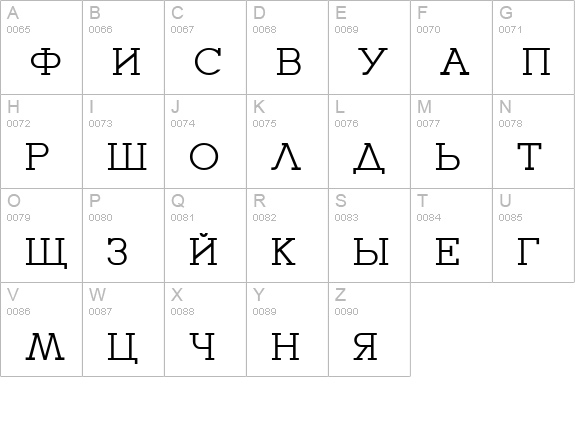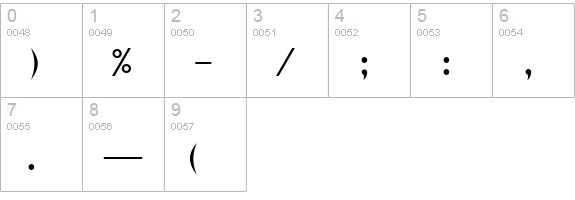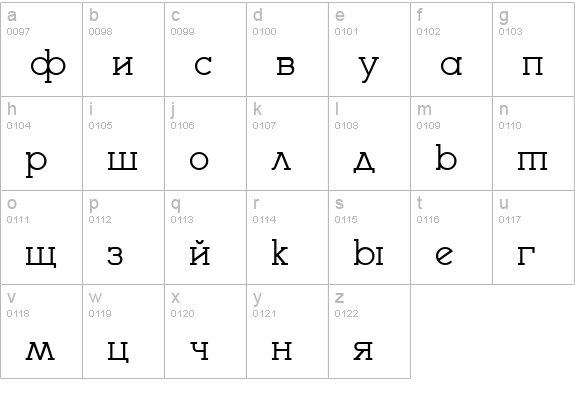
Stargorod Font Details
Introducing Stargorod font, a breathtaking typeface that will transport your designs to a whole new dimension. With its enchanting curves and intricate details, Stargorod captures the essence of elegance and sophistication. This font exudes a timeless beauty that is sure to captivate any viewer. Stargorod is not just an ordinary font; it is a masterpiece crafted with meticulous attention to detail. Every stroke and curve has been carefully designed to create a harmonious balance that is both visually appealing and easy to read. Whether you are creating a logo, designing a website, or crafting a poster, Stargorod will elevate your project to new heights of professionalism. One of the most remarkable aspects of Stargorod font is that it is available for free. Yes, you read that right! This stunning font can be yours without spending a single penny. Simply head over to FontsMarket.com and download Stargorod to unlock a world of possibilities. Whether you are a professional designer or a hobbyist, this font is a must-have in your toolkit. With its versatility, Stargorod can be used in a wide range of design projects. Its timeless elegance makes it perfect for wedding invitations, fashion magazines, luxury branding, and much more. The possibilities are endless, and with Stargorod, your creativity knows no bounds. So why wait? Experience the magic of Stargorod font today. Download it for free at FontsMarket.com and let your designs shine with its enchanting beauty. Elevate your work to a whole new level and leave a lasting impression on your audience. Stargorod font is more than just a typeface; it is a statement of style and sophistication.